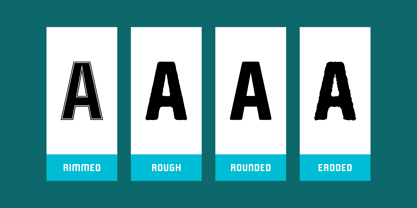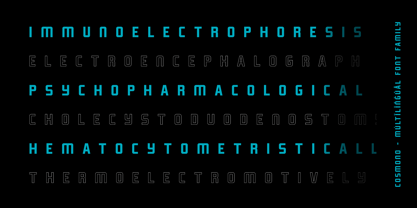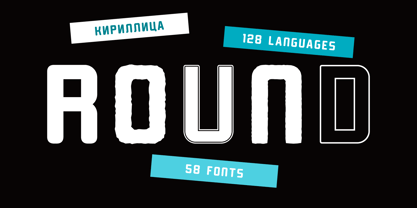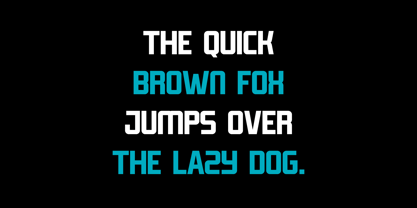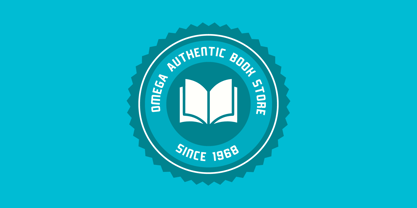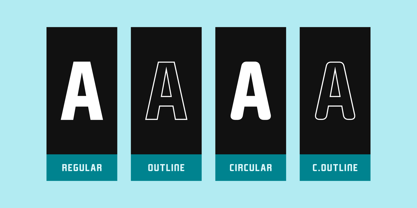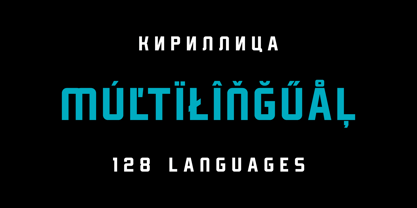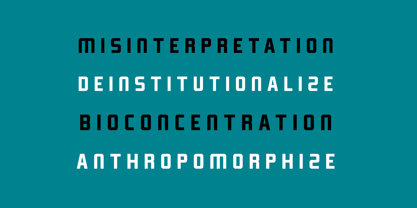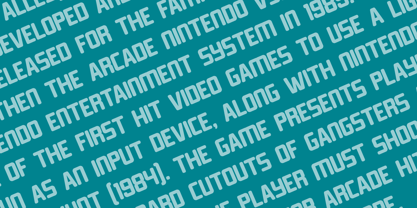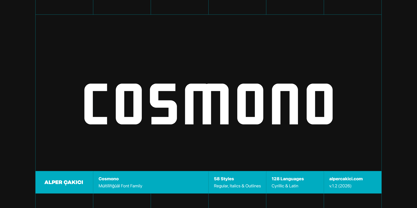
Cosmono
The Cosmono Font Family was designed by Alper Çakıcı and published by AlperCakici. Cosmono contains 58 styles and family package options. More about this family
🚀 Cosmono – A Rounded Modern Typeface System Cosmono is a contemporary type family designed with a rounded modern aesthetic and subtle futuristic stencil character. Built as a complete multi-style system, it delivers 58 consistent instances that allow designers to explore a wide range of visual tones while maintaining a cohesive typographic voice. From clean and minimal styles to expressive textured, inline, rimmed, brush, and eroded variations, Cosmono adapts seamlessly to both digital and print environments. Its balanced geometry and rounded forms make it especially effective for modern branding, UI/UX, sci-fi visuals, gaming graphics, posters, and bold display applications. ✨ Why Choose Cosmono? 58 Styles, One System A unified family including Regular, Italic, Rounded, Angular, Brush, Inline, Rimmed, Pencil, Noise, Rough, Outline, and Eroded variants. Rounded Modern Design Smooth curves combined with engineered cuts create a contemporary, forward-looking aesthetic. Designed for Versatility Perfect for branding, interfaces, posters, motion graphics, games, signage, and product design. Optimized Performance Carefully crafted for clarity and consistency across print, digital screens, and large-scale displays. 128 Language Support Extensive Latin + Cyrillic coverage for international projects.